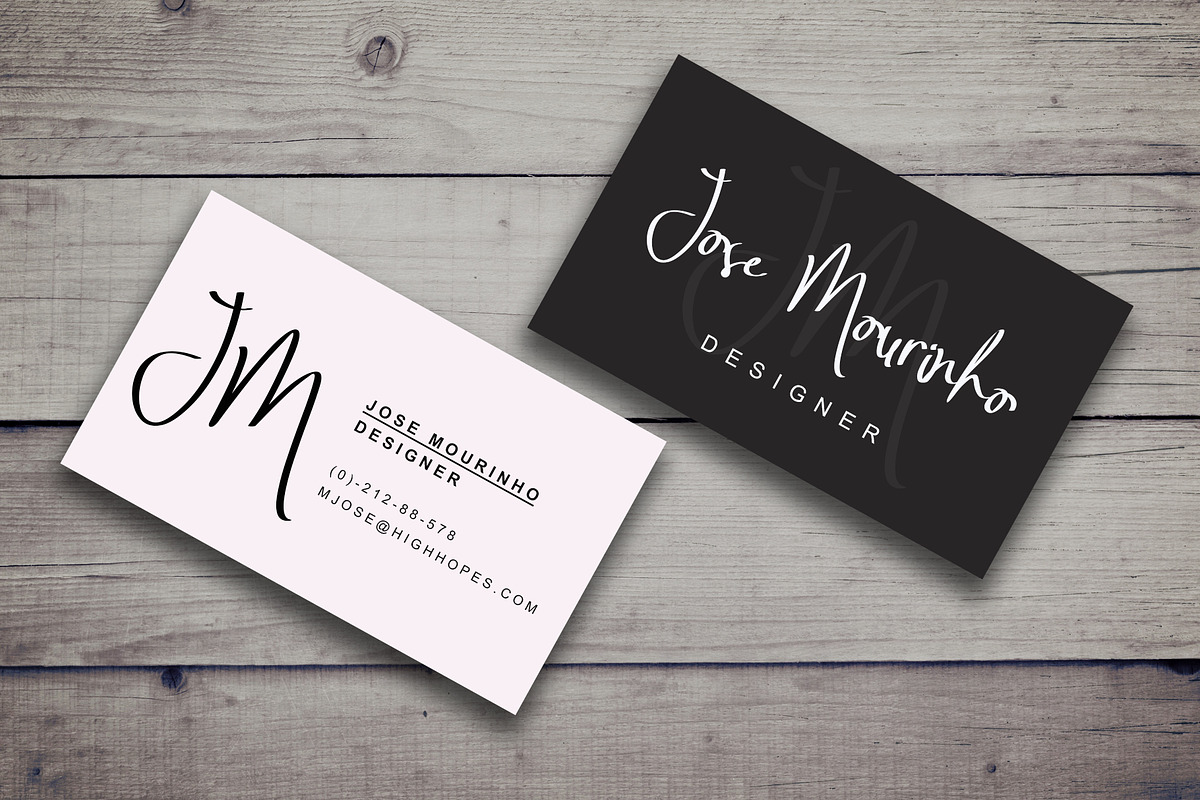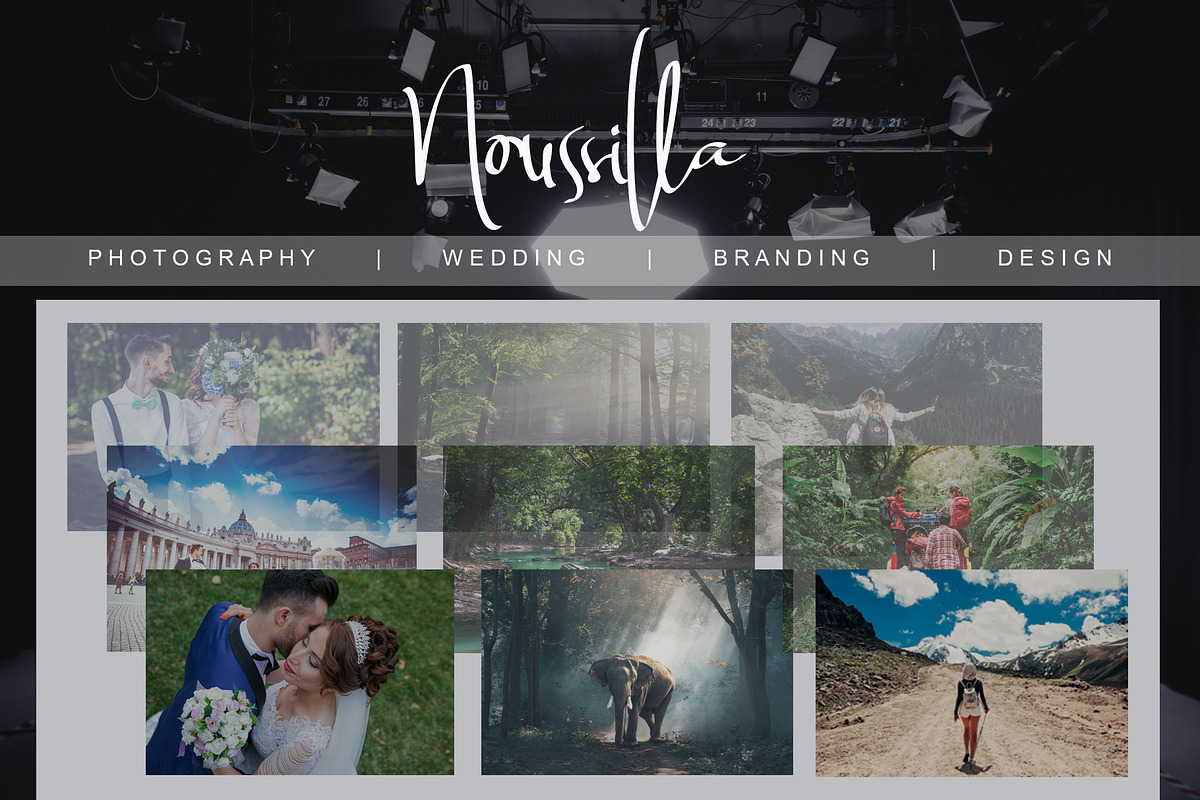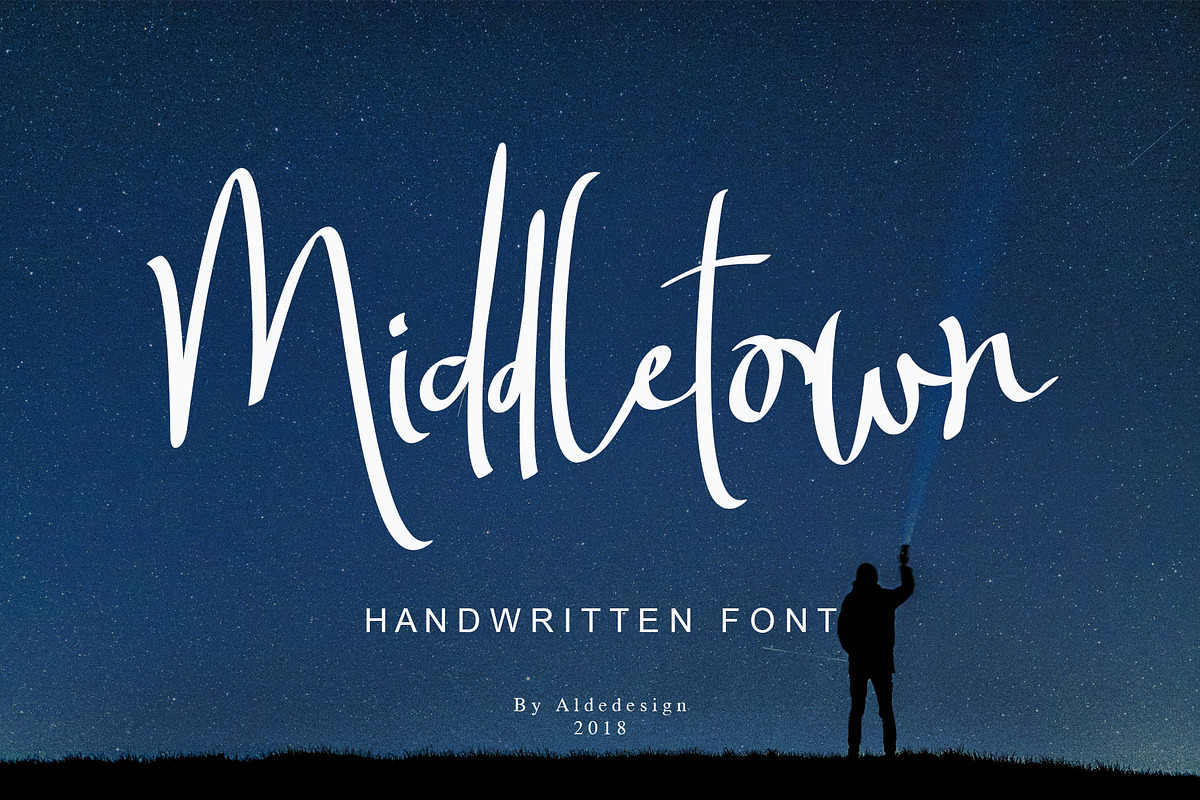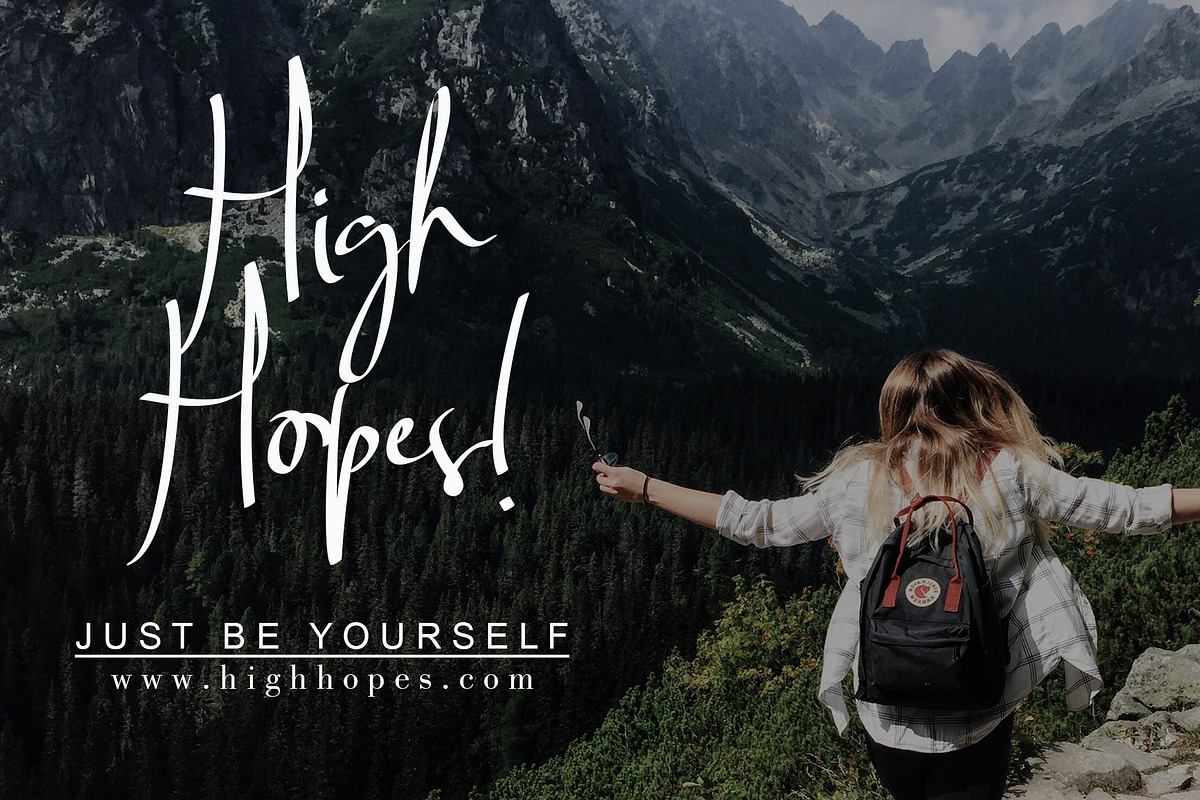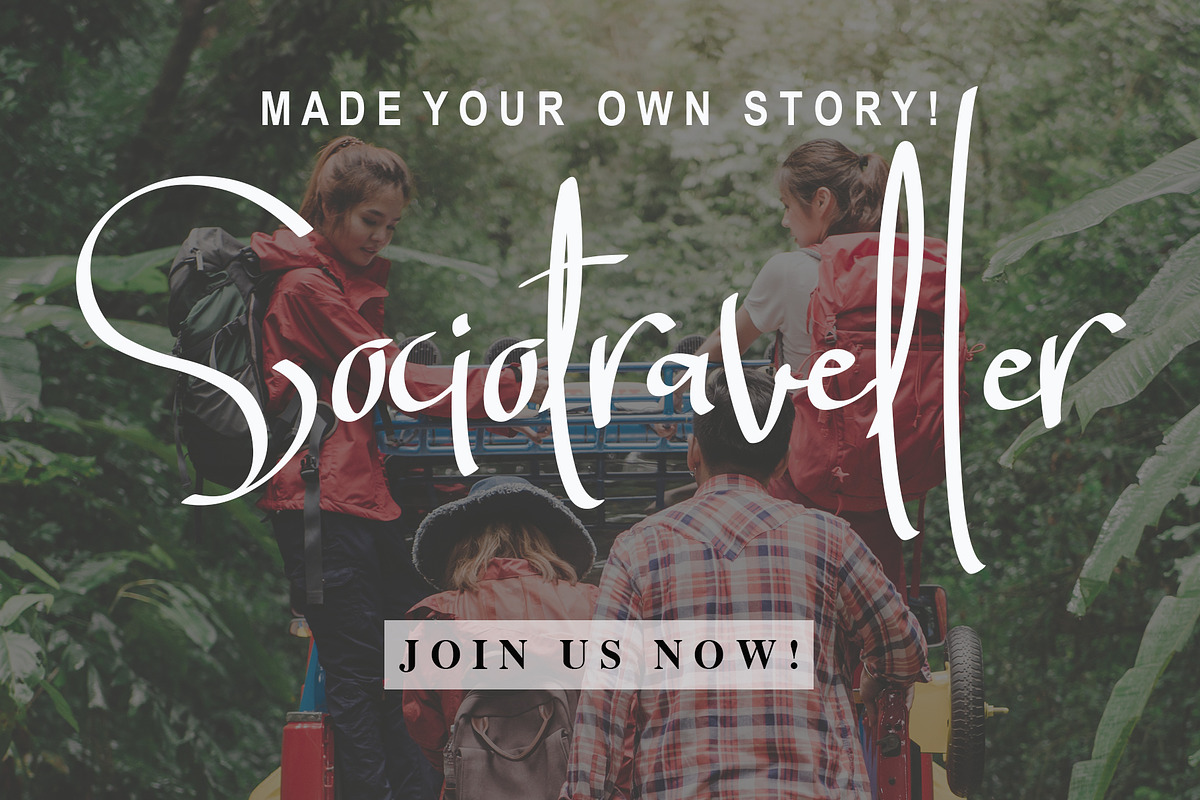
Middletown - Two Signature Fonts
Middletown is a font with simple and classy taste, comes with 2 Elegant Variations, opentype features such as ligatures, and free Slant Version . We keep this font looks classy, readable, elegant, stylish, catchy and absolutly easy to use.
Middletown Font is the great choice for watermark on photography, signature or signature logo design, album cover, business card, quotes, and many other design project.